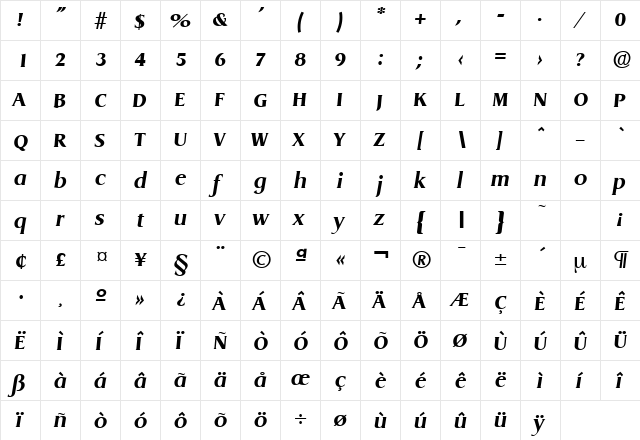
Dragon-Serial-ExtraBold RegularItalic Font Preview
Design Context for Dragon-Serial-ExtraBold Typeface
Dragon-Serial-ExtraBold is a composed and adaptable typeface that performs quietly and consistently across a wide range of design contexts. Its italic angle brings a sense of urgency and motion to the letterforms. Its bold stroke weight gives it real presence on the page.
Pro Tip: Try Dragon-Serial-ExtraBold for annotation and caption copy alongside an upright companion — the contrast in angle creates a dynamic but ordered typographic system.